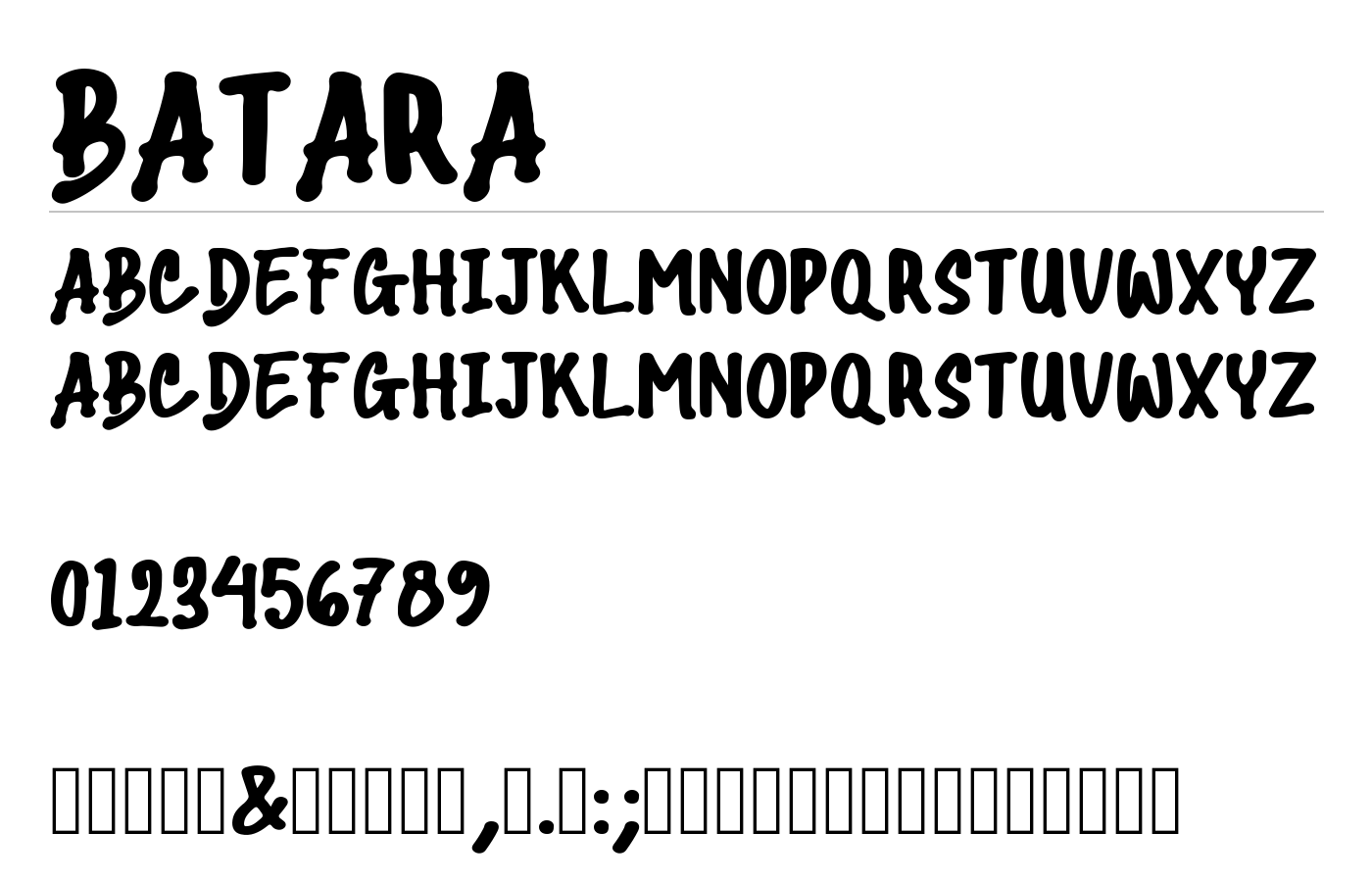
Batara is a bold, playful sans serif font with a hand-drawn, brush-like style that gives it a lively and friendly character. Its rounded strokes and slightly irregular shapes create a casual, approachable feel, making it ideal for fun, creative branding, posters, and headlines where a warm and inviting touch is desired. This font works well for designs that want to stand out with personality and a handcrafted, informal vibe.
| Font family | Batara Font |
| Designer | harisanggar |